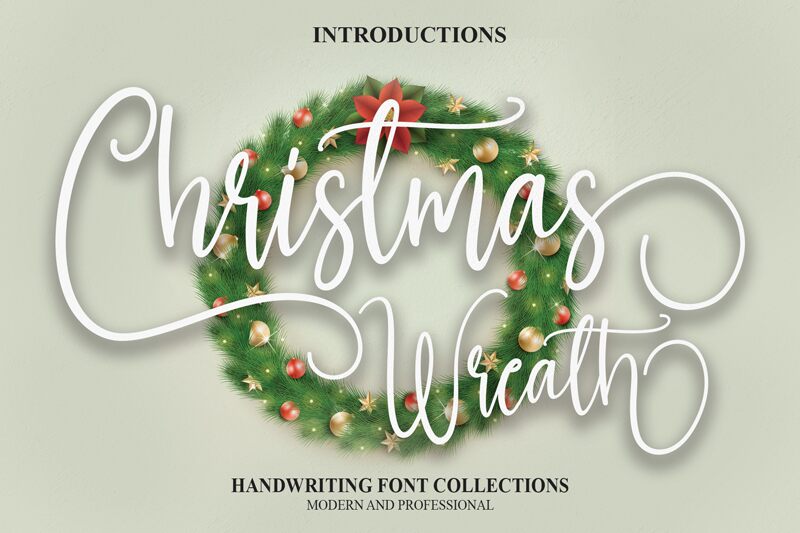
Christmas Wreath
With the festive season just around the corner, we're excited to unveil Christmas Wreath - a stunning calligraphy font designed by scratchones. Its semi-light weight adds an elegant touch to any holiday project, be it greeting cards, invitations, or social media graphics. Christmas Wreath's intricate loops and swirls mimic the beauty of a hand-drawn wreath, making it perfect for conveying warmth and coziness. Whether you're crafting a heartfelt message or spicing up your branding with some holiday cheer, this semi-bold font will help your designs stand out from the crowd. Spread some joy this season with Christmas Wreath!
the latest style letters are perfect for wall displays, wedding invitations, social media post logos,
advertisements, product packaging, product designs, labels, photography, watermarks, invitations, stationery,
and any project that requires taste handwriting.